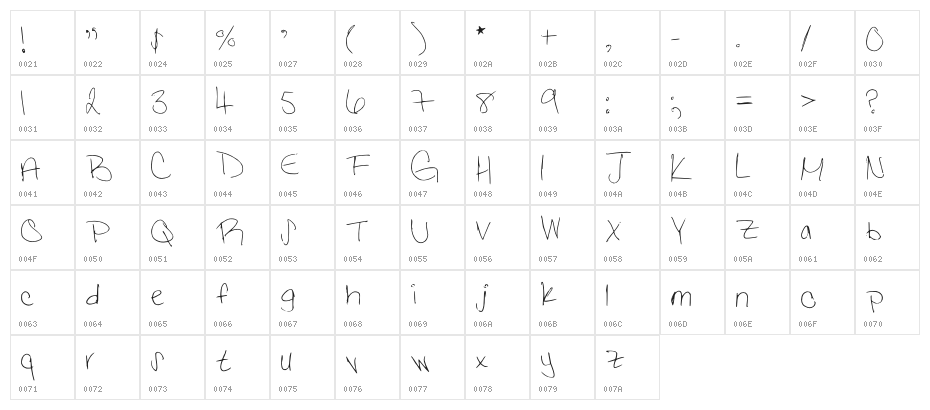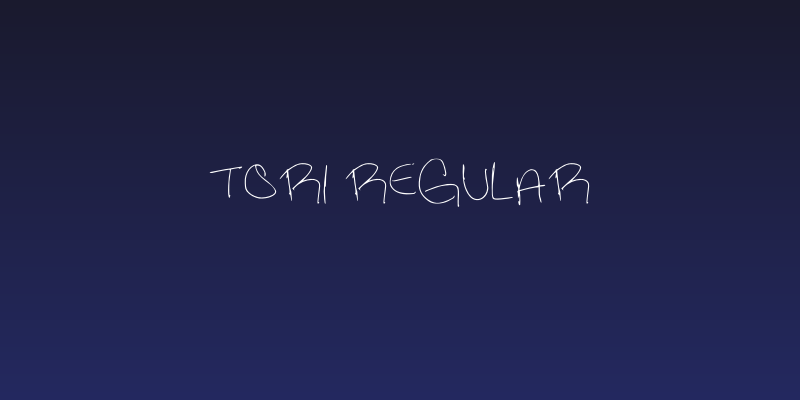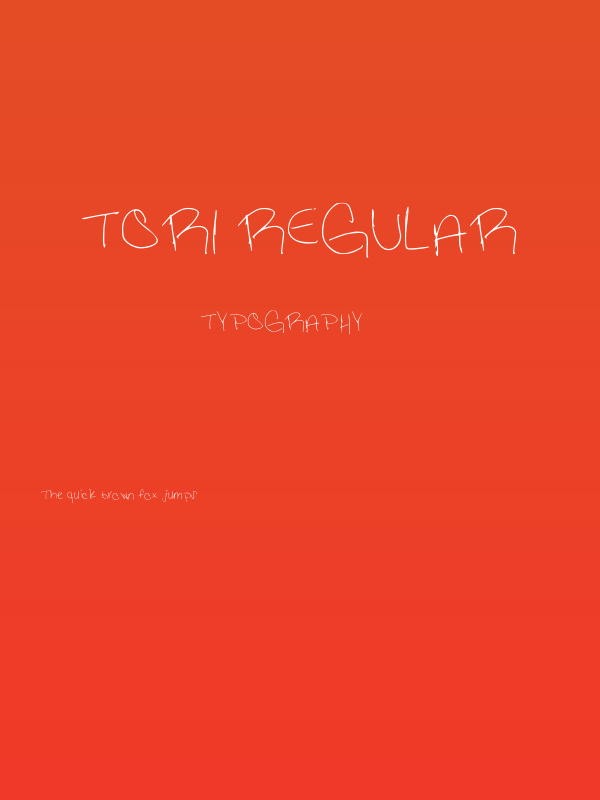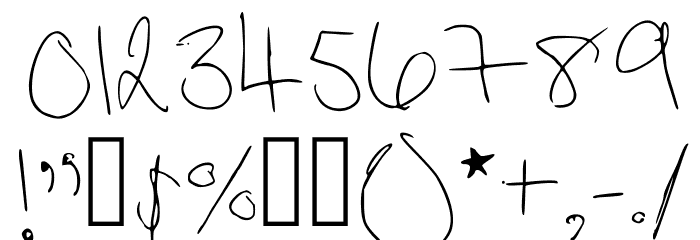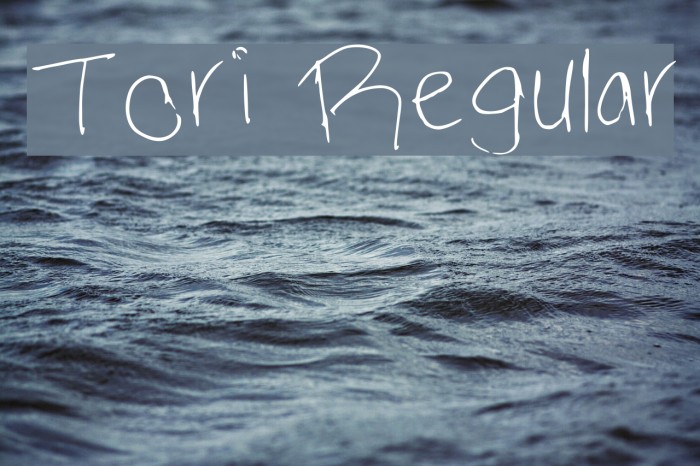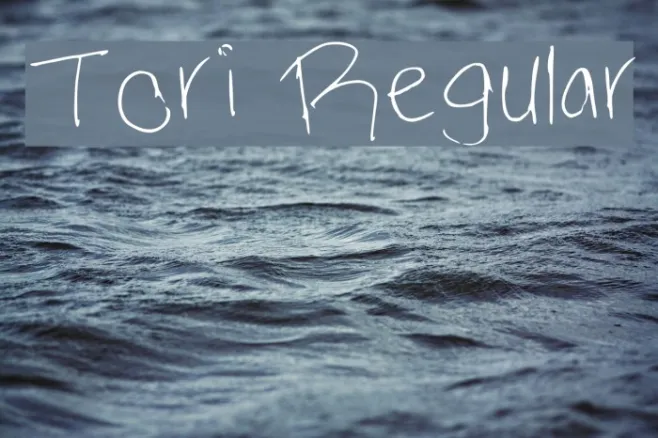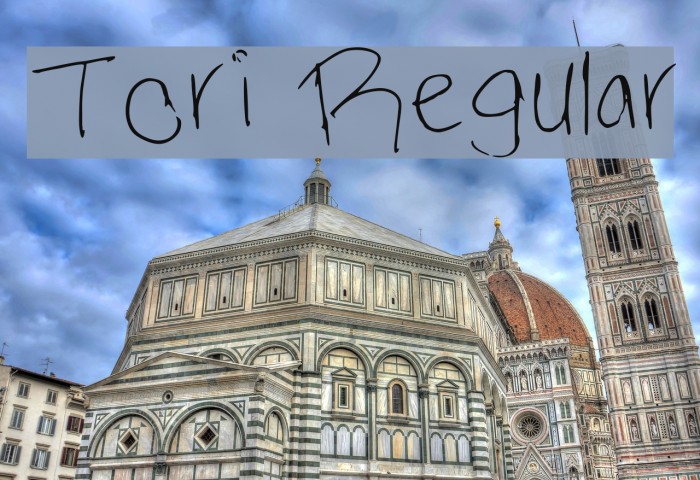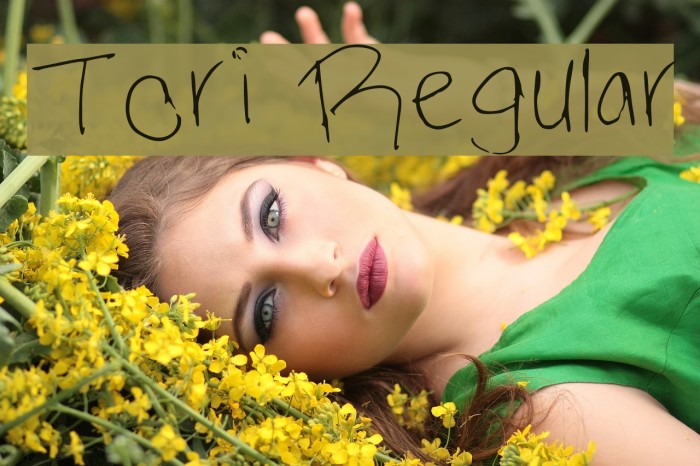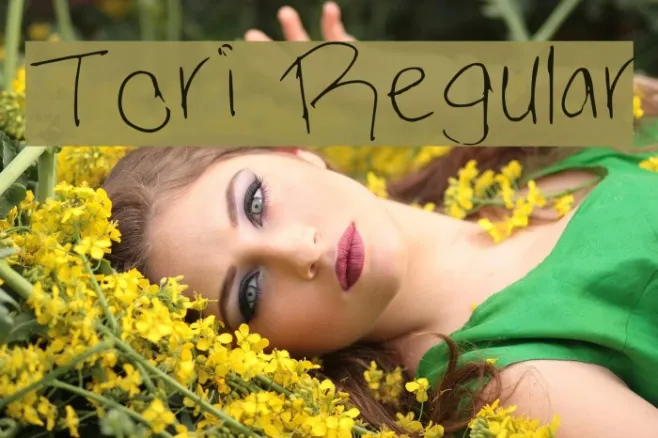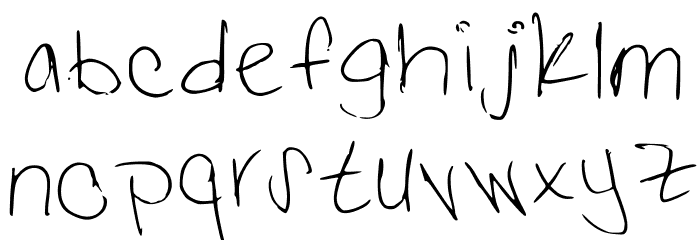
Tori Regular Font
Tori Regular Description
This font exhibits a playful and informal handwritten style, characterized by its irregular strokes and whimsical curves. The letters are slightly slanted, giving a sense of motion and fluidity. Uppercase and lowercase letters maintain a consistent style, with some characters featuring unique loops and swirls that add to the font's charm. The numbers are equally playful, with varying heights and widths that contribute to the overall casual aesthetic. Special characters are creatively designed, maintaining the hand-drawn feel. This font is perfect for projects that require a personal touch or a creative flair.
| Proposed Projects | Ideal for greeting cards, children's books, casual invitations, and creative branding. |